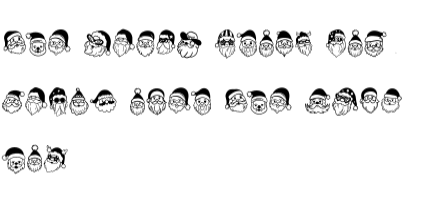
Santa Face Font: Add a Festive Touch to Your Creative Projects
The holiday season is upon us, and what better way to get into the spirit than with a festive font that screams Christmas cheer? Look no further than the Santa Face Font, a dingbats font designed to bring a touch of jolly old St. Nick to your creative projects. In this article, we’ll dive into the world of Santa Face Font, exploring its features, uses, and benefits, as well as provide tips on how to make the most of this fun and playful font.
What is Santa Face Font?
Santa Face Font is a unique dingbats font that features an adorable Santa Claus design. This font is perfect for anyone looking to add a festive touch to their creative projects, from wedding invitations and DIY crafts to decorations, logos, and more. With its playful and cheerful design, Santa Face Font is sure to bring a smile to anyone’s face.
Key Features of Santa Face Font
- Festive theme: Santa Face Font features a fun and festive design that’s perfect for the holiday season.
- Dingbats font: This font is a dingbats font, which means it’s made up of symbols and icons rather than traditional letters and numbers.
- Playful design: The Santa Face Font design is playful and cheerful, making it perfect for creative projects that require a touch of whimsy.
- Versatile: Santa Face Font can be used for a wide range of creative projects, from wedding invitations and DIY crafts to decorations, logos, and more.
Uses for Santa Face Font
Santa Face Font is a versatile font that can be used for a wide range of creative projects. Here are just a few ideas to get you started:
Wedding Invitations
Add a touch of festive cheer to your wedding invitations with Santa Face Font. This font is perfect for holiday-themed weddings or for couples who want to add a playful touch to their invitations.
DIY Crafts
Santa Face Font is perfect for DIY crafts, such as making holiday cards, gift tags, and decorations. This font can add a fun and playful touch to your crafts.
Decorations
Use Santa Face Font to create festive decorations, such as holiday banners, garlands, and signs. This font is sure to add a touch of cheer to any room.
Logos and Branding
Santa Face Font can also be used for logos and branding, particularly for businesses that want to add a festive touch to their brand. This font is perfect for holiday-themed businesses or for companies that want to create a fun and playful brand identity.
Benefits of Using Santa Face Font
There are many benefits to using Santa Face Font in your creative projects. Here are just a few:
Adds a Festive Touch
Santa Face Font is designed to add a festive touch to your creative projects. This font is perfect for anyone looking to create holiday-themed projects or add a touch of cheer to their designs.
Unique and Playful Design
Santa Face Font features a unique and playful design that’s sure to stand out. This font is perfect for anyone looking to add a touch of whimsy to their creative projects.
Versatile
Santa Face Font is a versatile font that can be used for a wide range of creative projects. This font is perfect for anyone looking for a font that can be used for multiple projects.
Tips for Using Santa Face Font
Here are a few tips for using Santa Face Font in your creative projects:
Use it Sparingly
While Santa Face Font is a fun and playful font, it’s best to use it sparingly. This font can be overwhelming if used too much, so be sure to balance it with other fonts and design elements.
Pair it with Other Fonts
Santa Face Font pairs well with other fonts, particularly those with a more traditional or elegant design. Try pairing Santa Face Font with a serif font for a fun and playful look.
Experiment with Colors
Santa Face Font looks great in a variety of colors, particularly those with a festive theme. Try experimenting with different colors, such as red, green, and gold, to add a touch of cheer to your designs.
Santa Face Font is a fun and playful font that’s perfect for adding a festive touch to your creative projects. With its unique and playful design, this font is sure to bring a smile to anyone’s face. Whether you’re looking to create holiday-themed projects or add a touch of cheer to your designs, Santa Face Font is a great choice. So why not give it a try and see what kind of creative projects you can come up with?